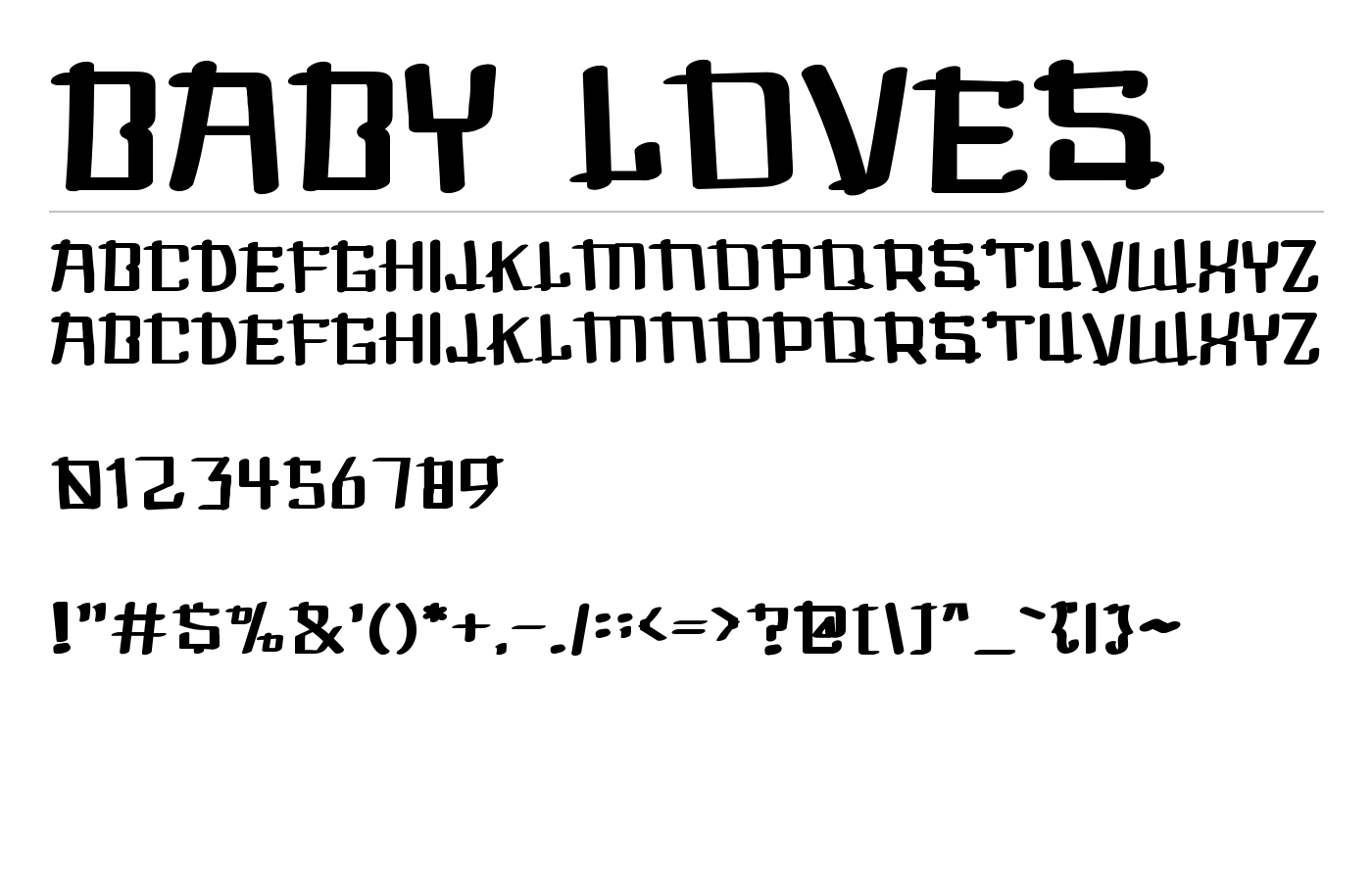
Baby Loves Font is a unique, bold sans serif typeface with a playful and slightly quirky character. Its thick strokes and squared shapes are softened by subtle rounded edges and tiny decorative terminals, giving it a friendly yet unconventional look that stands out. Ideal for eye-catching headlines, packaging, and creative branding, this font conveys a sense of fun and individuality while maintaining clear readability.
Baby Loves Font